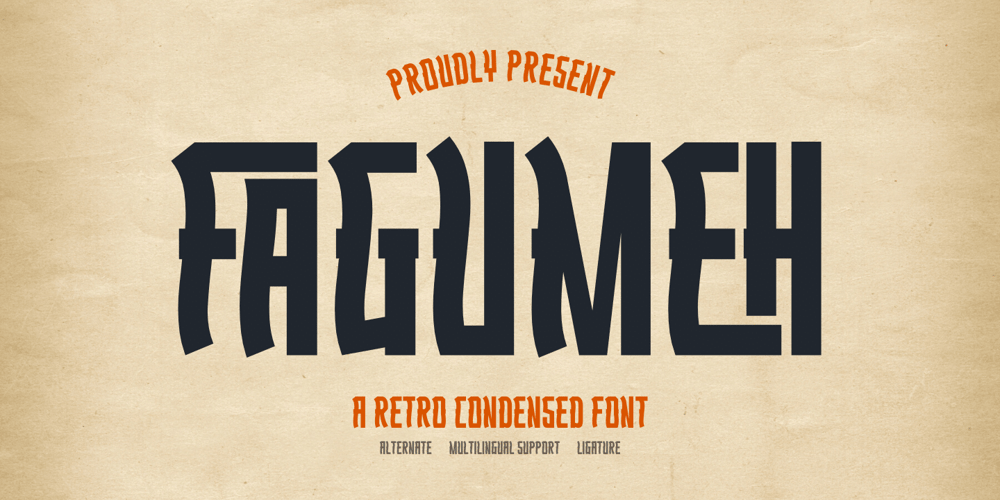
Fagumeh Font Family was designed by Rozikan and published by Twinletter. Fagumeh contains 1 styles and family package options. Get ready to add a touch of vintage charm to your design projects with Fagumeh font!This retro condensed font boasts a unique and high form, making it perfect for a wide range of design themes. Its stylistic sets and alternate characters offer a playful and distinct touch, while its unique ligatures add an extra touch of character. Fagumeh is the perfect font for any project that needs a touch of vintage flair and versatility. Upgrade your designs today with Fagumeh font.What’s Included :- File font- All glyphs Iso Latin 1- Alternate, Ligature- Simple installations- We highly recommend using a program that supports OpenType features and Glyphs panels like many Adobe apps and Corel Draw so that you can see and access all Glyph variations.- PUA Encoded Characters – Fully accessible without additional design software.- Fonts include Multilingual support